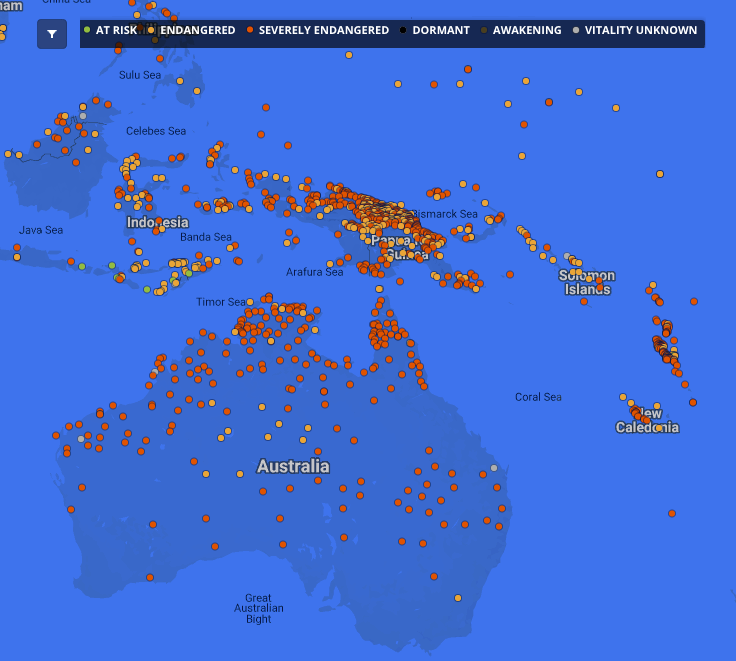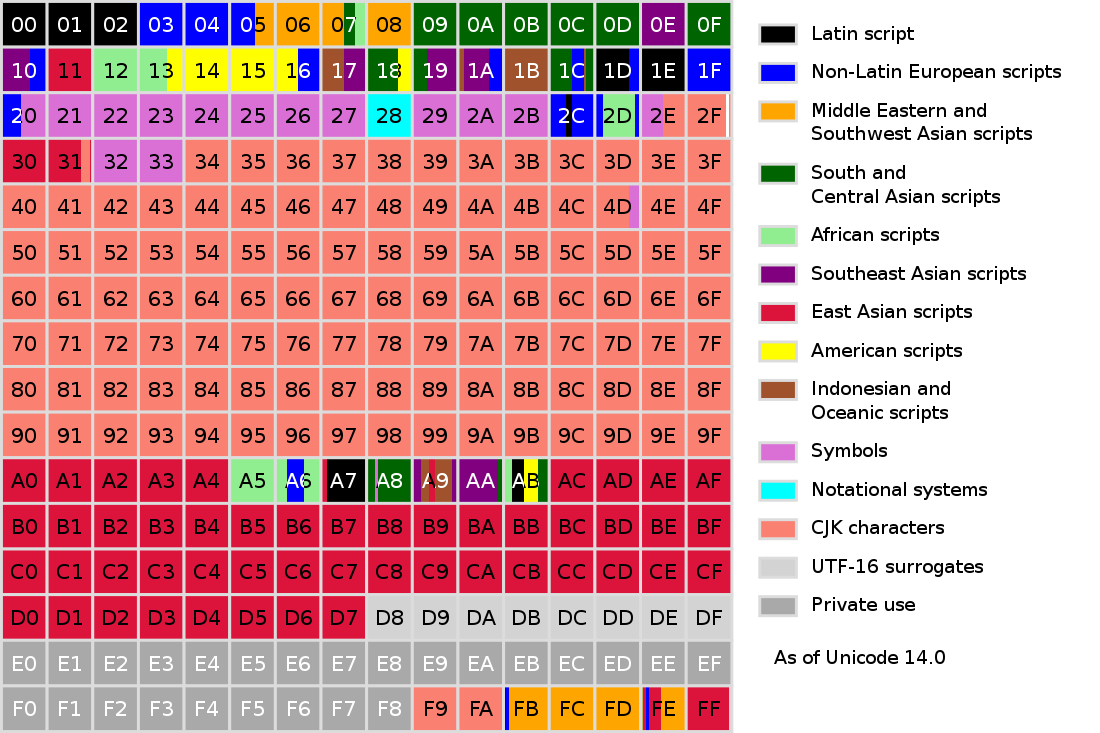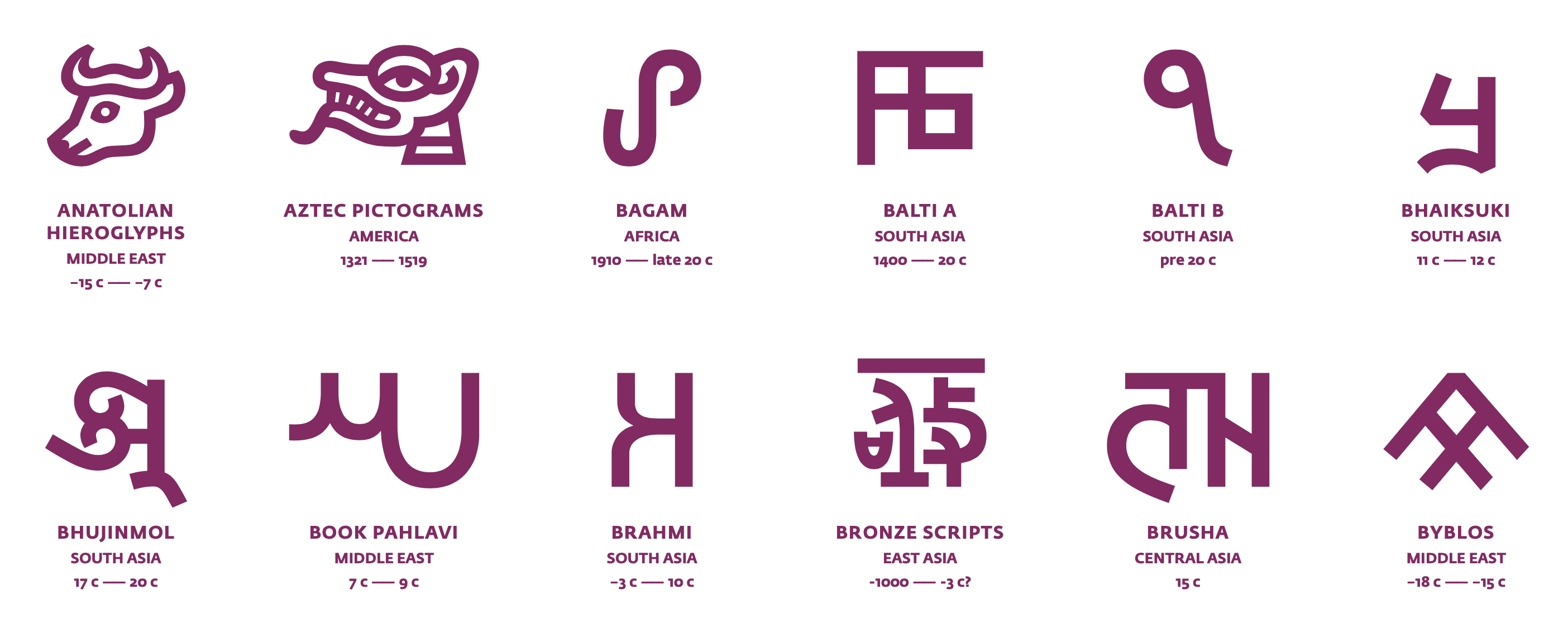
Script Not Found
How Unicode forms the basis
for digital communication
written by Josephine Kähler
Being able to communicate, share knowledge or search for something on the internet via technical devices is vital in times of digitization … and it’s only attainable if scripts are available on the computer. Since it has become possible to enter text on technical devices, the problems of converting multiple languages into computer text have grown. At first, many new opportunities were created but because all computer companies created their own code it became difficult to communicate across different computers and languages. ↘ 1 The Unicode Consortium Overview. Video: www.youtube.com/watch?v=-n2nlPHEMG8.
Creating an international encoding standard
Technical progress demanded a uniform standard for consistent encoding, display, and handling of text across countries. When Unicode was invented in 1991, 24 writing systems ↘ 2 “A writing system is a set of graphic characters that, combined with each other, provide a visual representation of one or several human languages.” www.worldswritingsystems.org/faq.html were encoded into one coding system. In 2023, in version 14.0, we have 159 encoded writing systems – about 135 of all 294 known writing systems worldwide are still missing. And because there are many different languages combined in one writing system (such as Latin combines English, French, German, etc.) there are even more languages that are in danger of becoming extinct. ↘ 3 The World’s Writing Systems. FAQ:www.worldswritingsystems.org/faq.html. Scientists assume that 50% of the world’s languages won’t survive the next century, accompanied by the loss of the speaking communities’ values, cultural identity, and heritage sites. ↘ 4 Austin, Peter K.; Sallabank, Julia. „Introduction“. Cambridge Handbook of Endangered Languages. Cambridge University Press, 2011 This is why it’s important to try to prevent as many endangered languages as possible from becoming extinct.
Excerpt from the map of endangered languages initiated by the “Endangered Language Project”. Here you can find the whole map up to date
Preserving knowledge and communication
Digitization preserves knowledge and enables intergenerational communication. Digital text is also very important for old, disabled, or visually handicapped people because computer programs or apps are now able to read text aloud. Users are also able to zoom in on a text. Furthermore, with digital text, it’s finally possible to copy and paste text, enabling documents to be transcribed instead of only distributing photos of documents that may be hard to read or reproducible. ↘ 5 Preserving endangered languages with Noto fonts. Article: blog.google/outreach-initiatives/accessibility/preserving-endangered-languages-noto-fonts/. That’s why it’s also important for dead languages to be encoded in Unicode, so they can be used for research. For these reasons, researchers from all over the world work today on the preservation of writing systems. The Missing Scripts Project ↘ 6 The Project. Website: www.worldswritingsystems.org/project.html for instance, aims to identify writing systems which are not yet encoded in the Unicode standard. ↘ 7 The Missing Scripts Project is a joint effort of Atelier National de Recherche Typographique (ANRT), the Institut Designlabor Gutenberg (IDG), the Script Encoding Initiative (SEI) and the Department of Linguistics
A few exemples for historical glyphs by the “The World’s Writing Systems”
But how can a writing system be included in Unicode? First of all, you have to make a request to the Unicode Consortium and prove that a living community is continuously using the language and the characters. When a new language is encoded in Unicode computer companies have to include it in their operating system, so we can use it on our technical device. But that’s ultimately only possible if there is a typeface for the writing system which isn’t always the case and some languages are inadequately designed or incomplete. ↘ 8 Decode unicode – the world’s writing systems. Video: youtu.be/IRdupNXpm8k. That’s why type designers have a huge responsibility when talking about the preservation of endangered languages.
Map of the “Basic Multilingual Plane”, where each numbered box represents 256 code points
So, how did Unicode influence design since it was invented in 1991? Well, with Unicode it first became possible to communicate globally and across different computers in different languages and writing systems. It was the basis for many type designers to create new typefaces which is why we have a multitude of digital fonts today.